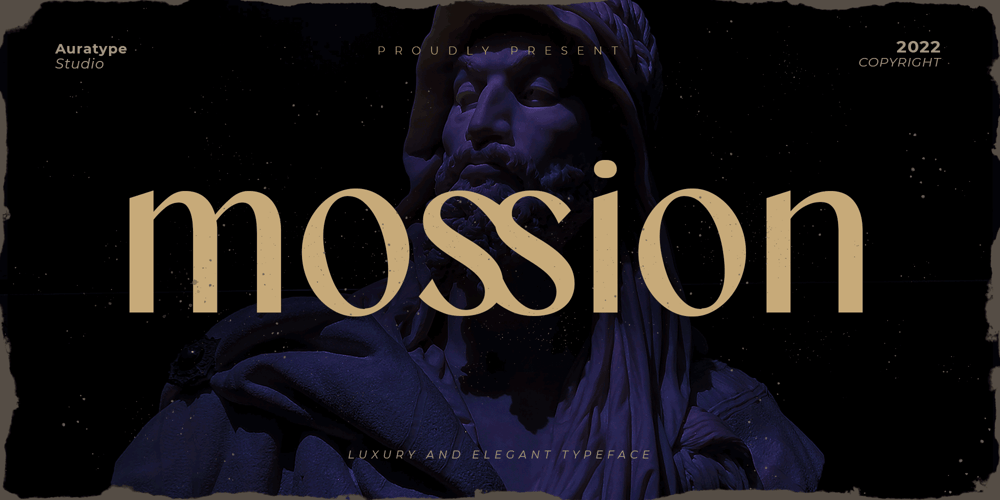
Mossion
Mossion font
Mossion Font Family was designed by Wahyu Dwi Cahyo and published by Auratype Studio. Mossion contains 1 styles and family package options. This elegant and luxury font is can be perfect used for logos or branding and can be support your designs project to give more aesthetic and exclusife preview. This Mossion typeface is perfect for logotype, branding, packaging, posters, social media, and many more!———Features :A full set of uppercase and lowercaseNumbers and punctuationMultilingual language supportPUA Encoded CharactersOpenType Feature———⚠️To enable the OpenType Stylistic alternates, you need a program that supports OpenType features such as Adobe Illustrator CS, Adobe InDesign & CorelDraw X6-X7, Microsoft Word 2010, or later versions. There are additional ways to access alternates/swashes, using Character Map (Windows), Nexus Font (Windows), Font Book (Mac), or a software program such as Pop Char (for Windows and Mac).